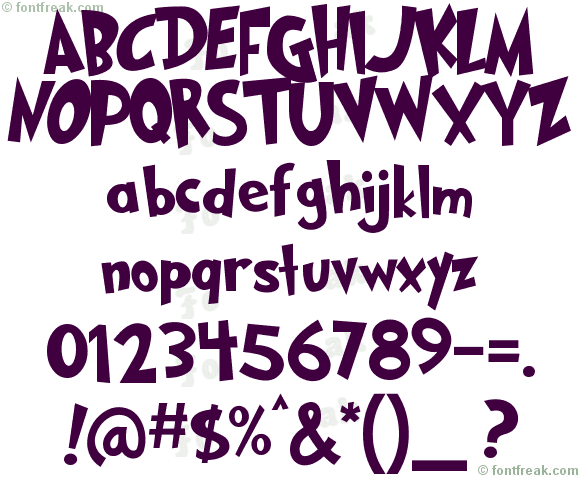
Grinched 2.0
About Grinched 2.0
Grinched 2.0 by Sharkshock is a playful display font that captures the whimsical spirit of the holiday season. With its bold, rounded letters and a slightly irregular baseline, this decorative typeface exudes a cheerful charm that is perfect for festive designs. The stroke weight is consistent, creating a sturdy appearance, while the overall spacing allows for easy readability, making it suitable for a variety of applications. The font's unique character set includes delightful flourishes and playful curves, adding a lively touch to any project.
Ideal for holiday-themed designs, the Grinched 2.0 font finds its best use in Christmas cards, festive party invitations, and cheerful advertisements. It's also a fantastic choice for movie posters that aim to convey a light-hearted, comical tone, as well as for children's book covers where a sense of fun and excitement is paramount. Small business owners looking to create a seasonal promotional campaign can also benefit from this font, giving their marketing materials a distinctive and memorable flair.
Targeted towards graphic designers, content creators, and small business owners, Grinched 2.0 offers a unique opportunity to infuse creativity into seasonal projects. This font is especially appealing to those who appreciate a fun, informal aesthetic that captures the essence of joy and celebration.
What sets the Grinched 2.0 font apart is its ability to evoke nostalgia while remaining fresh and contemporary. The balance of playful whimsy and legible design makes it a versatile choice that stands out in a crowded market of holiday-themed fonts. For those looking to add a touch of magic to their designs, the Grinched 2.0 font free download is a must-have addition to any creative toolkit.